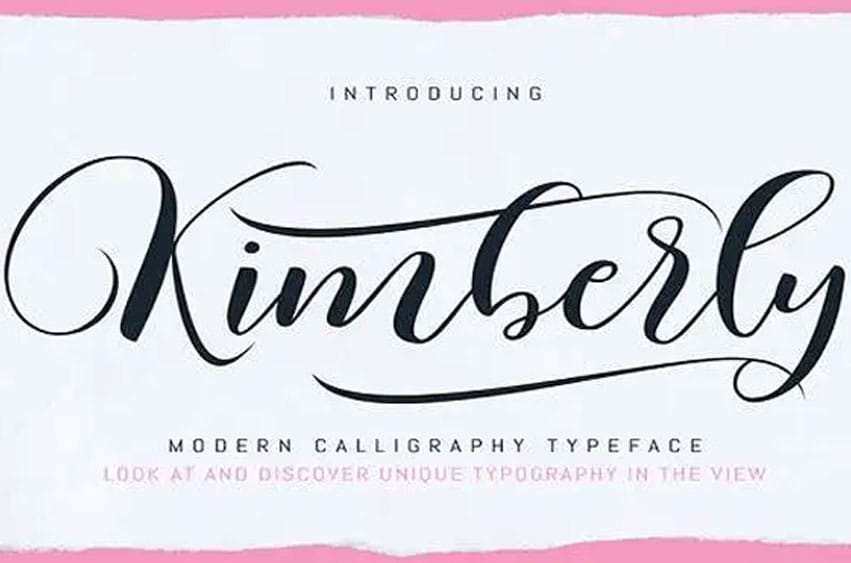
Kimberly FontĀ is another one of those Calligraphy fonts that you will definitely love to download and use for your personal work for free.
The free version of the keyboard includes all letters in both uppercase and lowercase and a few symbols as well.